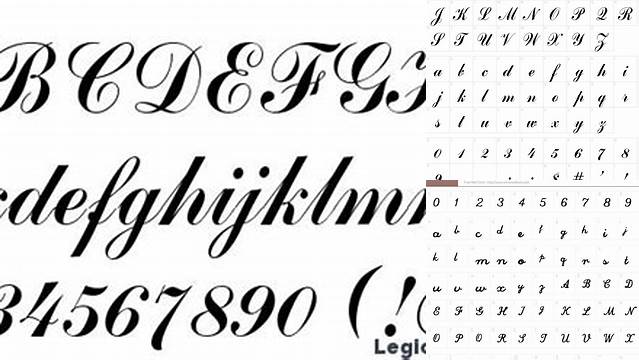
Free Commercial Script Bold Fonts: Download Guide
Hey guys! Are you on the hunt for that perfect commercial script bold font to really make your projects pop? Well, you're in the right place! Finding the ideal font can be a game-changer, especially when you need something that screams professionalism and creativity at the same time. In this article, we’re diving deep into the world of commercial script bold fonts, where to find them for free, and how to make sure you’re using them legally and effectively. Script fonts, with their flowing lines and handwritten feel, add a touch of elegance and personality to any design. When you combine that with the boldness needed to grab attention, you've got a powerful tool in your creative arsenal. Whether you're designing logos, posters, websites, or marketing materials, the right font can elevate your work from blah to bam! We will explore the importance of selecting a font that aligns with your brand identity, and discuss how bold script fonts can convey sophistication, warmth, and a personal touch. Understanding the nuances of font licensing is crucial, and this article will guide you through the different types of licenses and what they mean for your commercial projects. We'll also share some tips on how to pair script fonts with other fonts to create visually appealing and balanced designs. So, let’s jump right in and get you set up with some fantastic, free options!
What Makes a Font “Commercial Script Bold?”
Okay, first things first: What exactly is a commercial script bold font? Let’s break it down. “Script” refers to fonts that mimic handwriting. Think of those beautiful calligraphy styles you see on wedding invitations or fancy restaurant menus. They’ve got that personal, flowing touch. Now, add “bold,” and you’re talking about a version of that script that’s thicker and heavier. This makes it stand out more, catching the eye and adding emphasis. Finally, “commercial” means you can use it for projects that make money – your business logos, your marketing materials, stuff like that. Not all fonts are free for commercial use, so this is super important to keep in mind! A commercial script bold font should have a distinctive, readable style that is suitable for branding, advertising, and other professional applications. The boldness ensures that the text remains legible and impactful, even at smaller sizes or when viewed from a distance. The elegance of the script style adds a touch of sophistication and personalization, making it an excellent choice for projects that require a unique and memorable look. But selecting the right bold script font also involves considering the overall tone and message you want to convey. Some bold script fonts have a more formal and refined appearance, while others are more playful and casual. Matching the font to your brand's personality is key to creating a cohesive and effective visual identity. In addition, the versatility of the font should be taken into account. Can it be used across different media, both print and digital? Does it have a variety of weights and styles to provide flexibility in your designs? These are all important questions to ask when choosing a commercial script bold font.
Why Use a Bold Script Font for Your Projects?
So, why should you even consider a bold script font? Well, these fonts are total rockstars when it comes to making an impression. They blend the charm of handwritten styles with the punch of bold lettering. This combination is perfect for grabbing attention while still looking classy and stylish. Imagine using it for a logo – it’s memorable and unique. Or think about eye-catching headings on your website or blog. Bold script fonts add a touch of personality that regular fonts just can’t match. They're also great for invitations, posters, and social media graphics. They’re super versatile! A bold script font can convey a sense of luxury, craftsmanship, or creativity, depending on the specific style. For example, a flowing, ornate script might be perfect for a high-end brand, while a more playful, modern script could suit a creative agency or boutique. The key is to choose a font that resonates with your target audience and the message you want to communicate. Bold script fonts are also excellent for creating contrast and visual hierarchy in your designs. By using them for headlines and key text elements, you can draw the reader's eye and make your content more engaging. However, it's essential to use these fonts sparingly and in combination with more legible fonts for body text to ensure readability. Overusing script fonts can make your design look cluttered and unprofessional. When selecting a bold script font, consider the context in which it will be used. Will it be printed on a large poster, or displayed on a small mobile screen? Ensure that the font remains clear and readable in various sizes and formats. Additionally, check if the font includes all the characters and glyphs you need, such as ligatures and alternative letterforms, to give your design a polished and professional appearance. By carefully considering these factors, you can leverage the power of bold script fonts to create stunning and effective designs.
Where to Find Free Commercial Script Bold Fonts
Tips for Using Commercial Script Bold Fonts
Okay, you’ve got your commercial script bold font downloaded and ready to go. Awesome! But how do you actually use it effectively? Here are a few tips to keep in mind:
Readability is Key
First and foremost, make sure your font is readable. Script fonts can sometimes be tricky, especially in bold. If the letters are too thick or too swirly, they can become hard to decipher. Always prioritize readability, especially for key text like headings and logos. Test your font in different sizes and contexts to ensure it remains clear and legible. Even the most beautiful script font won't be effective if people can't read it. Readability is particularly important for body text, where large blocks of text need to be easily readable. While bold script fonts are great for headlines and accents, they are generally not suitable for paragraphs of text. Instead, pair your script font with a clean, legible sans-serif or serif font for the body text. This combination provides visual contrast and ensures that your content is easy to read. When using a script font, pay attention to the spacing between letters and words. Too little spacing can make the text look crowded and difficult to read, while too much spacing can make it appear disjointed. Adjust the kerning and tracking settings in your design software to achieve optimal readability. Another aspect of readability is the background color and contrast. Ensure that your font stands out clearly against the background. Avoid using light-colored fonts on light backgrounds or dark-colored fonts on dark backgrounds. A high level of contrast between the font and the background will improve readability and make your text more impactful. In addition to these technical considerations, also think about the context in which your font will be used. If your design will be viewed on a mobile device, for example, you may need to choose a font that is more readable at smaller sizes. Similarly, if your design will be printed, you'll need to consider how the font will look on different types of paper and with different printing techniques. By prioritizing readability in your font choices, you can create designs that are both visually appealing and effective in communicating your message.
Pair It Wisely
Bold script fonts often look best when paired with a simpler font. Think of it like a fancy dress – it looks great, but you wouldn’t wear a crazy hat and sparkly shoes with it, right? Same with fonts. A clean sans-serif or a classic serif font usually works wonders as a contrast. This creates a balanced, professional look. Pairing fonts effectively is an art form, and it's essential to consider the personality and style of each font. A good rule of thumb is to choose fonts that complement each other without competing for attention. For example, a bold script font with a lot of personality can be paired with a simple sans-serif font for a clean and modern look. Conversely, a more delicate script font might pair well with a classic serif font for a traditional and elegant feel. When selecting font pairings, consider the visual hierarchy of your design. Use the bold script font for headlines and key text elements, and the simpler font for body text and supporting information. This helps to guide the reader's eye and create a clear and organized layout. In addition to style and personality, also consider the technical aspects of font pairing. Ensure that the fonts you choose have similar x-heights (the height of the lowercase letters) and stroke thicknesses. This will create a more cohesive and harmonious look. Pay attention to the spacing between lines and letters when pairing fonts. Adjust the leading (line spacing) and kerning (spacing between letters) to achieve optimal readability and visual balance. Too little or too much spacing can make your design look cluttered or disjointed. Experiment with different font pairings to find the ones that work best for your project. Use online resources and font pairing tools to get inspiration and ideas. Don't be afraid to try unexpected combinations, but always prioritize readability and visual harmony. By mastering the art of font pairing, you can elevate your designs and create a professional and polished look.
Use Sparingly
Just because you can use a bold script font everywhere doesn’t mean you should. These fonts are impactful, but they can also be overwhelming if overused. Use them for headlines, logos, or short phrases where you want to make a statement. Don't use them for long blocks of text – that’s a recipe for eyestrain! The key to effective font usage is to create a visual hierarchy in your design. By using bold script fonts sparingly for key elements, you can draw the reader's eye and make your message more impactful. Think of it as adding a splash of color to a black-and-white canvas – it creates a focal point and adds visual interest. Overusing any decorative font, including bold script fonts, can make your design look cluttered and unprofessional. A well-designed layout should have a balance between different font styles and sizes. Use simple, legible fonts for body text and reserve the bold script font for headings, subheadings, and call-to-action buttons. This will help to guide the reader through your content and make it easier to understand. When using a bold script font, consider the overall tone and message of your design. If you're aiming for a formal or professional look, use the font sparingly and in combination with a more classic font. If you're creating a more casual or playful design, you can use the font more liberally, but still be mindful of readability and visual balance. Experiment with different placements and sizes of your bold script font to see what works best for your design. Try using it as a large, attention-grabbing headline, or as a smaller accent to add a touch of personality. Don't be afraid to break the rules and try something new, but always prioritize readability and visual appeal. By using bold script fonts sparingly and strategically, you can create designs that are both visually stunning and effective in communicating your message.